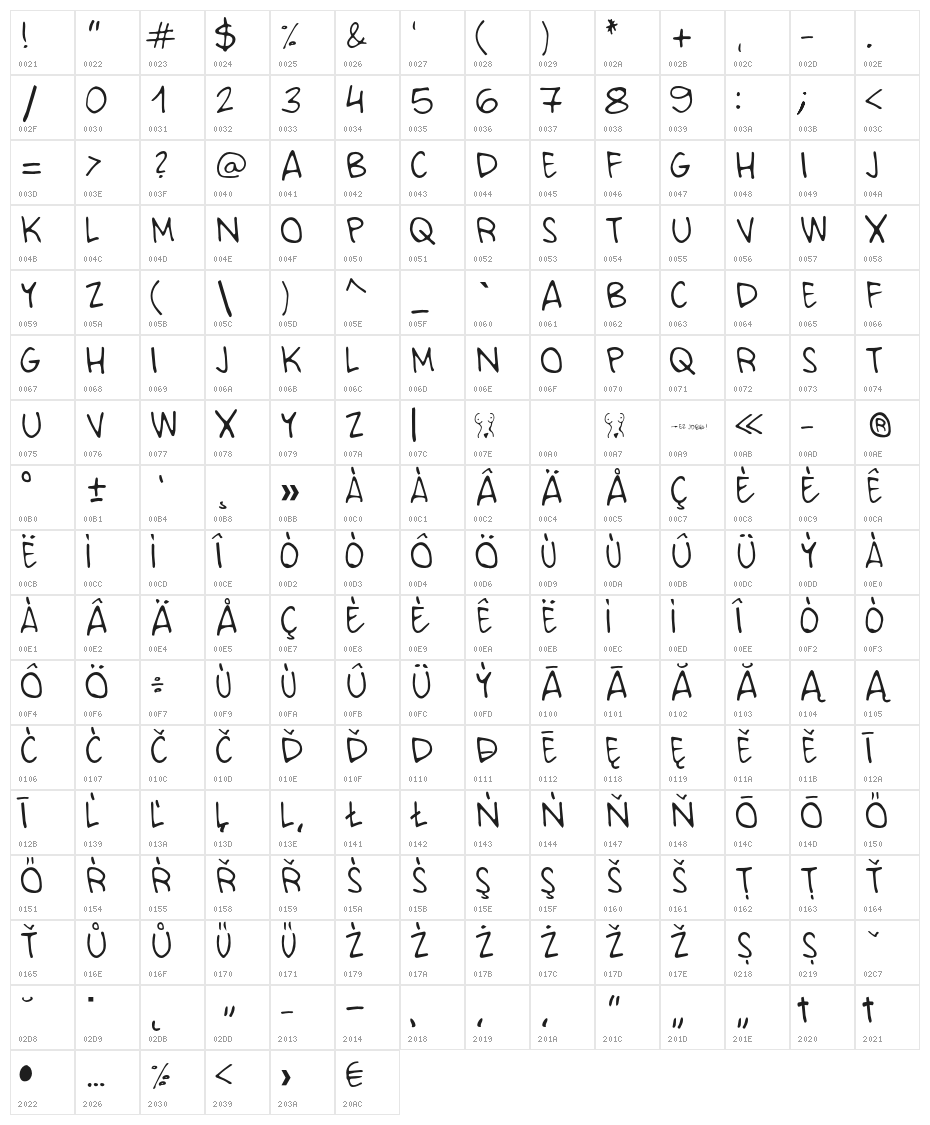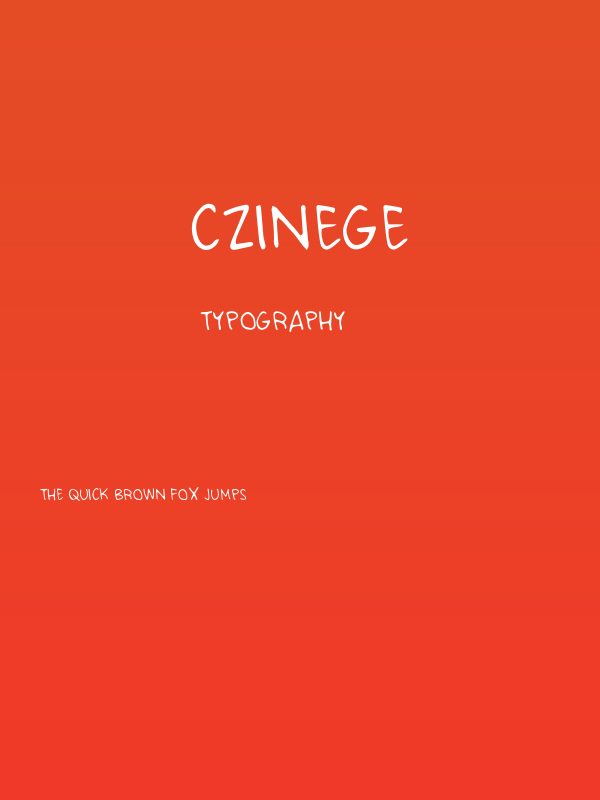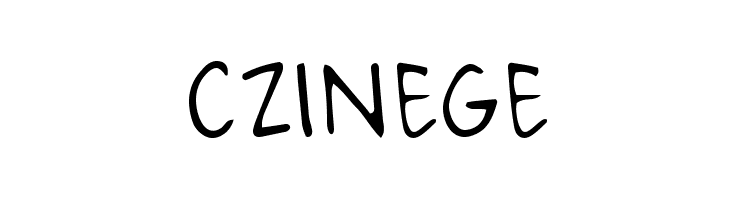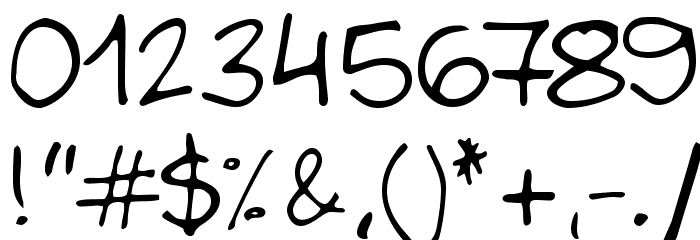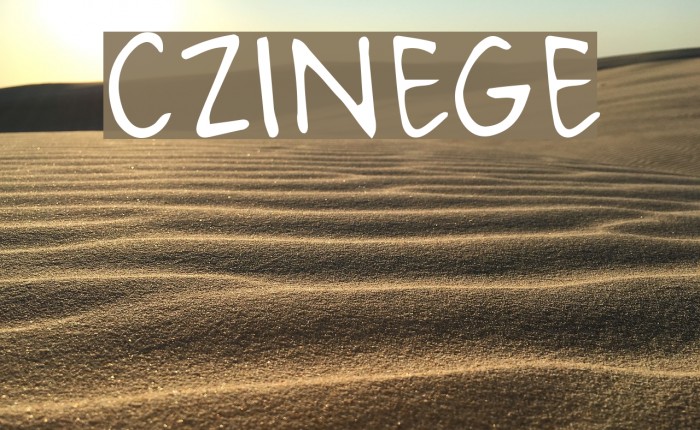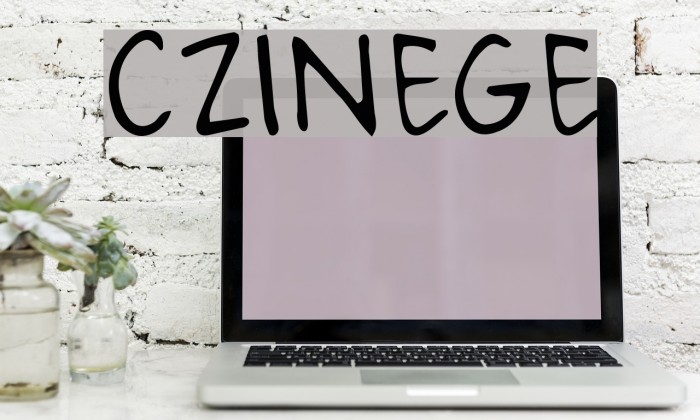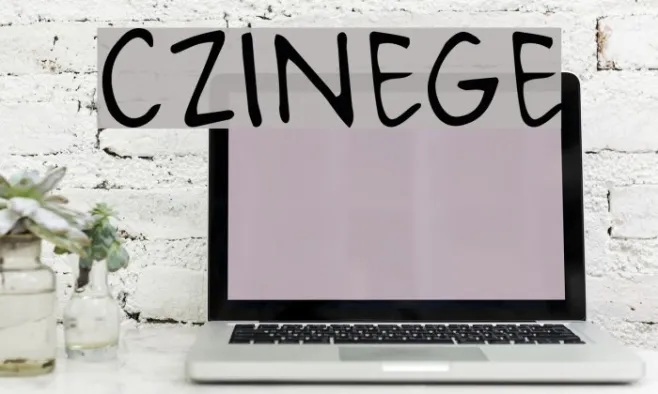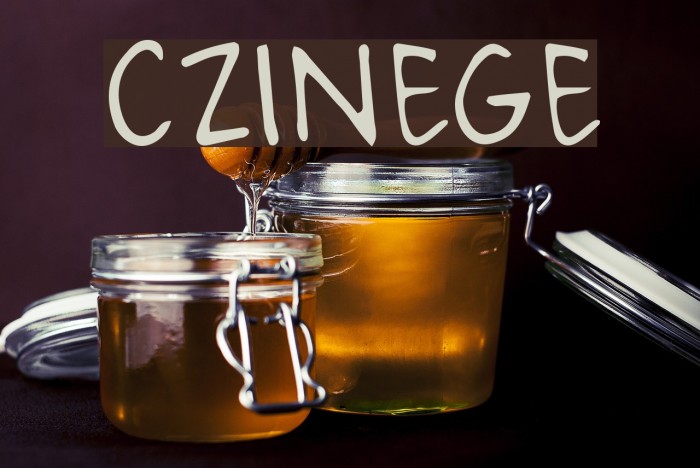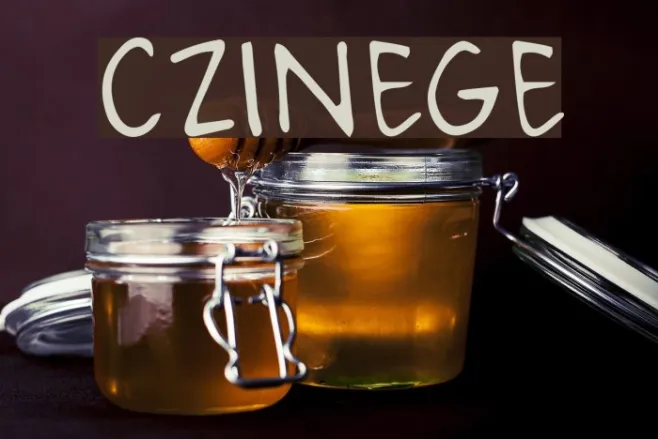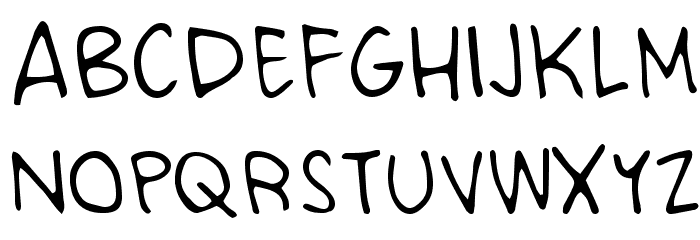
CZINEGE Font
CZINEGE Description
This font features a playful and casual handwritten style, characterized by its uneven strokes and slightly irregular letterforms. The uppercase and lowercase letters maintain a consistent flow, giving it a friendly and approachable appearance. The numerals and special characters follow the same informal style, making it suitable for projects that require a personal touch. The overall design is simple yet expressive, with a natural, hand-drawn feel that adds warmth and personality to any text.
| Use Case | Headlines, Informal text, Personal projects |
| Proposed Projects | Ideal for greeting cards, children's books, personal blogs, and informal branding projects. |